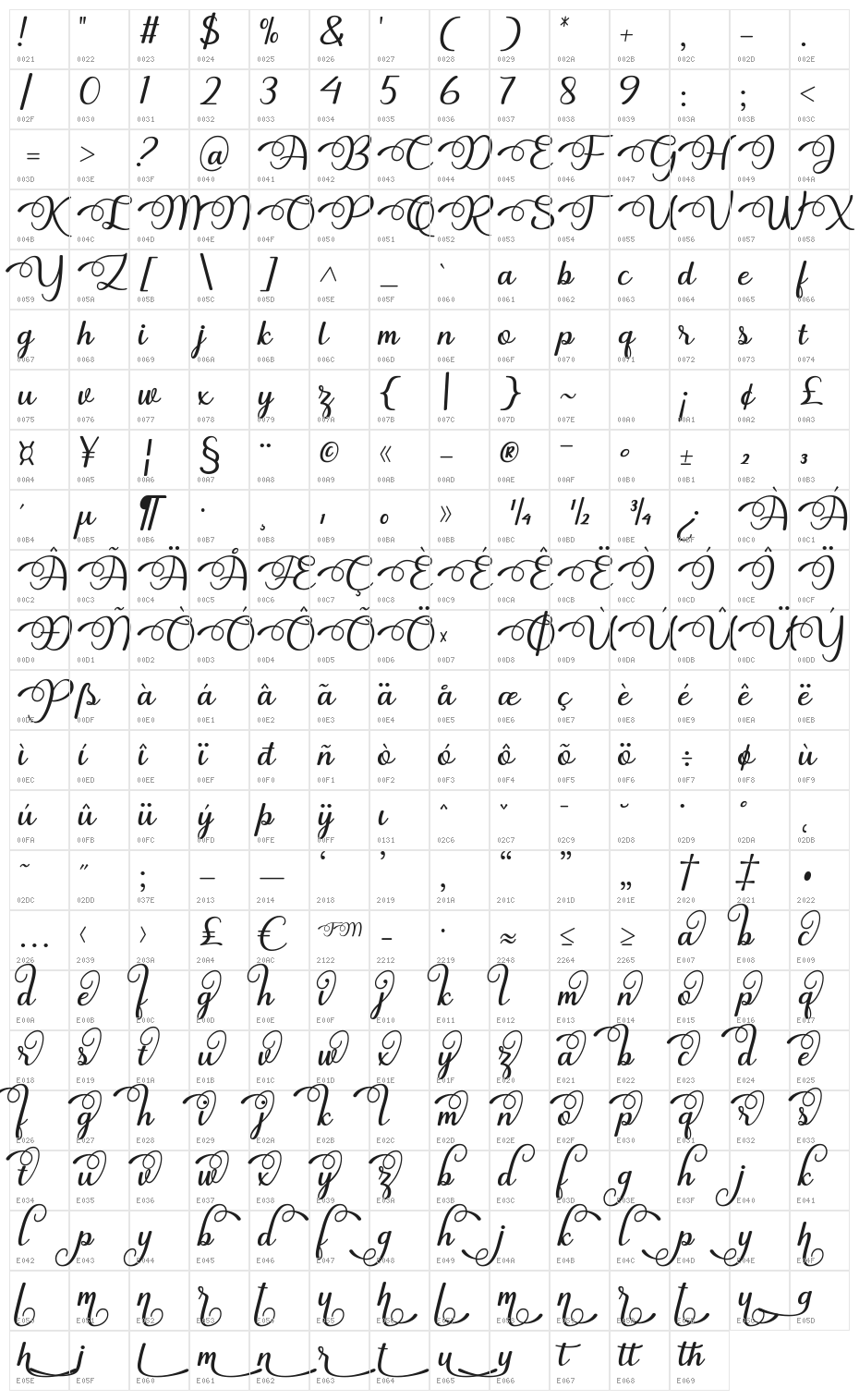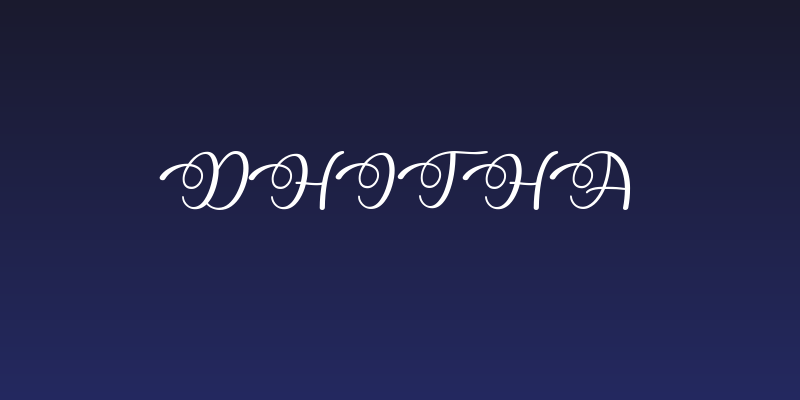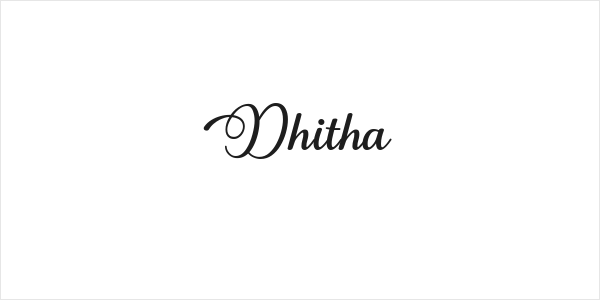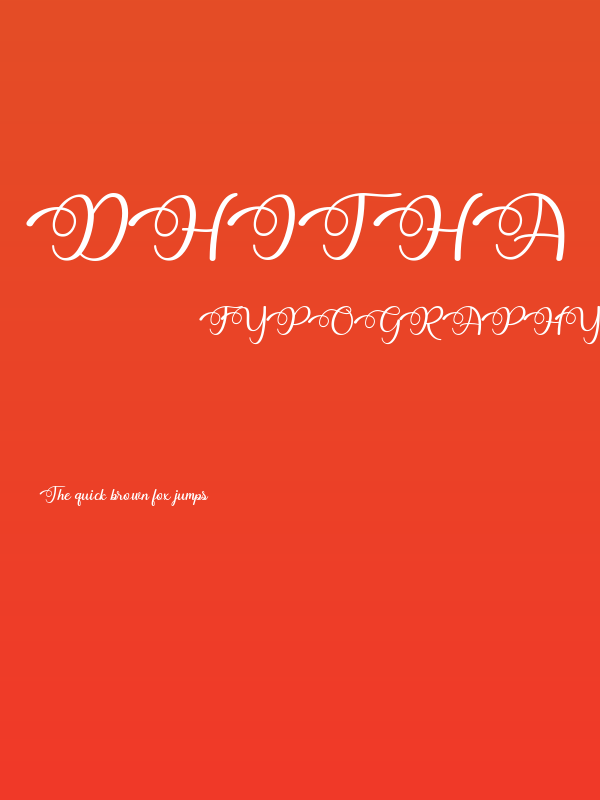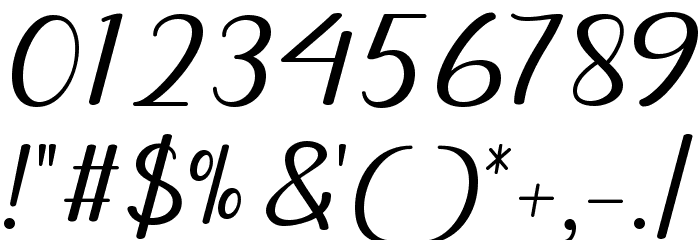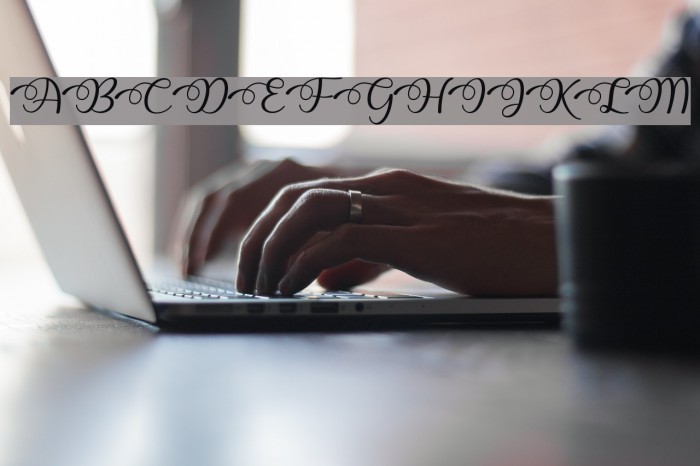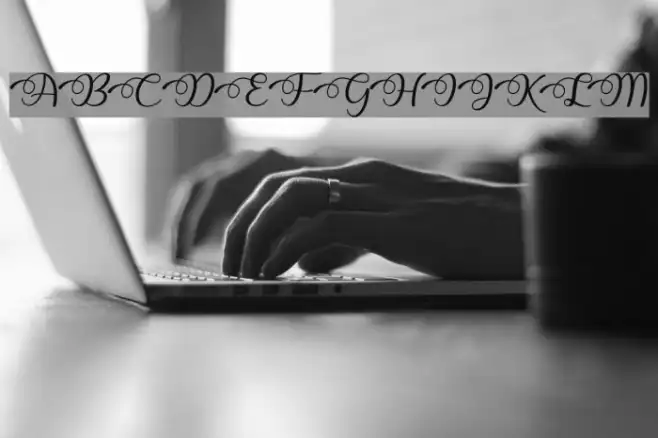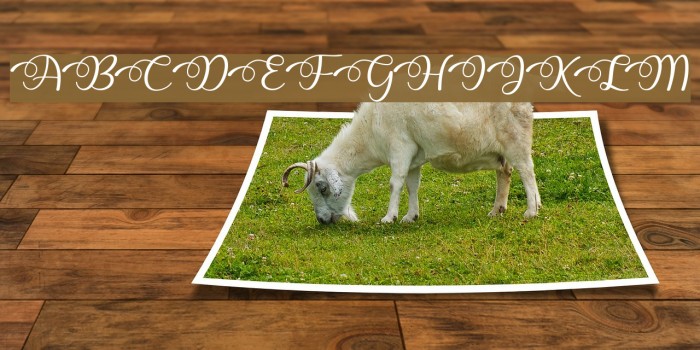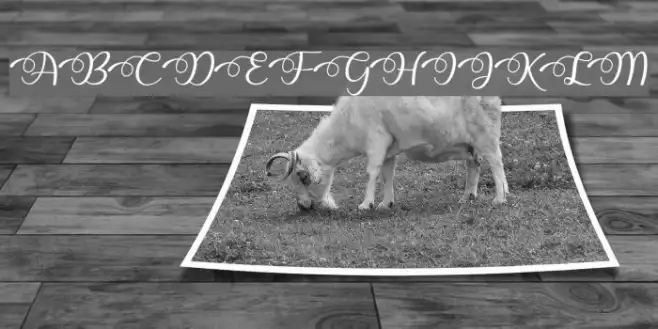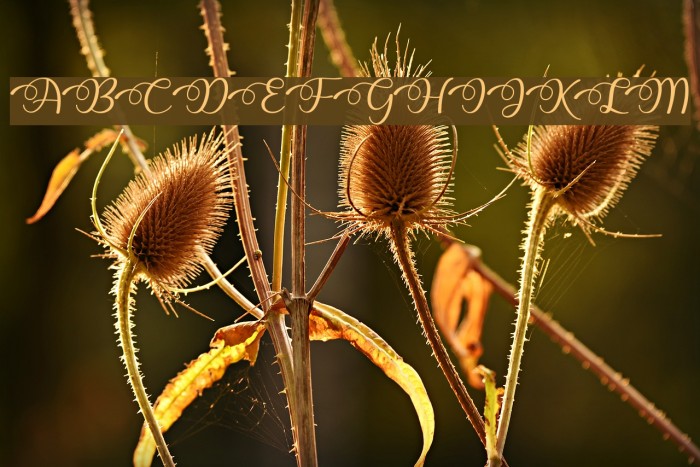
Dhitha Font
Dhitha Description
This font features a graceful and elegant script style, characterized by its flowing, cursive letters that convey a sense of sophistication and charm. The uppercase letters are adorned with delicate loops and flourishes, adding a decorative touch that enhances the overall aesthetic. The lowercase letters maintain a smooth, connected appearance, ideal for creating a seamless flow in text. The numerals are designed with a slight slant, complementing the cursive nature of the alphabet. Special characters are thoughtfully integrated, maintaining the font's cohesive style. This font is perfect for projects that require a touch of elegance and personality.
| Proposed Projects | Ideal for wedding invitations, greeting cards, branding, and elegant logo designs. |